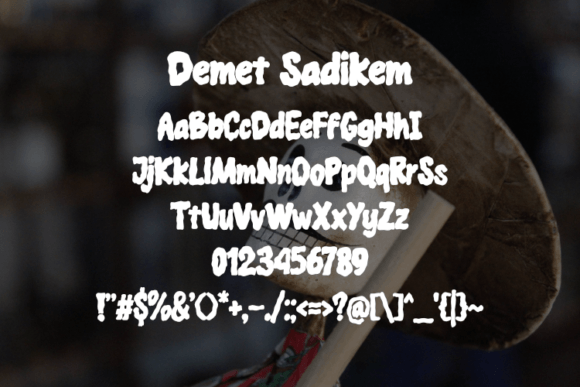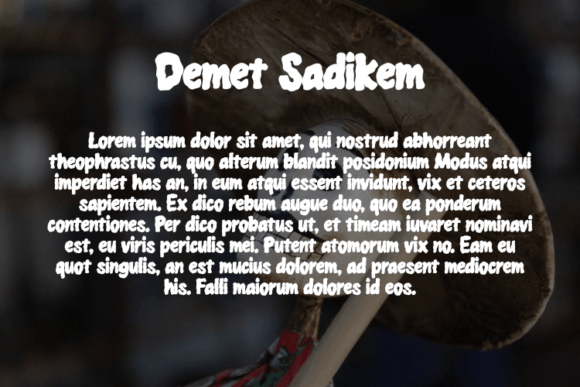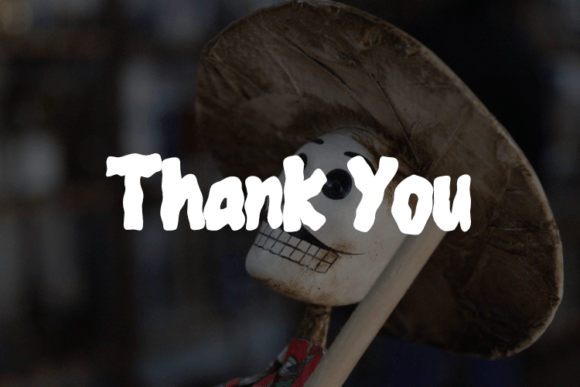
Introducing Demet Sadikem Font: Elevate Your Designs with Elegance and Creativity
In the world of design, fonts play a crucial role in bringing your ideas to life. A perfect font can make all the difference in transforming a simple design into a stunning visual treat. This is where Demet Sadikem comes in – a versatile and adaptable font specially crafted to breathe life into your clothing and product designs. In this article, we’ll explore the features and benefits of Demet Sadikem, and how it can elevate your designs to new heights.
What is Demet Sadikem Font?
Demet Sadikem is a thoughtfully designed font, perfect for designers and crafters looking for a unique and elegant touch. Its versatility makes it an excellent choice for a wide range of designs, from t-shirts and clothes to product designs and more. The font is compatible with all software platforms, offering both otf and ttf files, ensuring seamless integration into your design workflow.
Key Features of Demet Sadikem Font
- Versatility: Demet Sadikem is designed to be adaptable, making it suitable for various design projects, including clothing, product designs, and more.
- Elegance and Creativity: The font adds a touch of elegance and creativity to your designs, setting them apart from the ordinary.
Benefits of Using Demet Sadikem Font
Using Demet Sadikem in your designs offers numerous benefits. Firstly, it saves you time and effort in finding the perfect font, allowing you to focus on the creative aspects of your project. Secondly, the font’s uniqueness and impressive functionality ensure that your designs stand out from the crowd. Finally, Demet Sadikem’s compatibility with all software platforms makes it easy to integrate into your workflow, streamlining your design process.
Design Ideas with Demet Sadikem Font
Demet Sadikem’s versatility makes it suitable for a wide range of design projects. Here are a few ideas to get you started:
- T-Shirt Designs: Create stunning t-shirt designs with Demet Sadikem, adding a touch of elegance and creativity to your apparel.
- Product Designs: Use Demet Sadikem to create visually appealing product designs, from packaging to branding materials.
- Stationery Designs: Add a touch of sophistication to your stationery designs, including business cards, letterheads, and more.
Tips and Tricks for Working with Demet Sadikem Font
To get the most out of Demet Sadikem, here are a few tips and tricks:
- Experiment with Different Sizes: Try out different font sizes to see how Demet Sadikem looks in various contexts.
- Play with Colors: Experiment with different colors to find the perfect combination that complements your design.
- Combine with Other Fonts: Try pairing Demet Sadikem with other fonts to create a unique and visually appealing design.